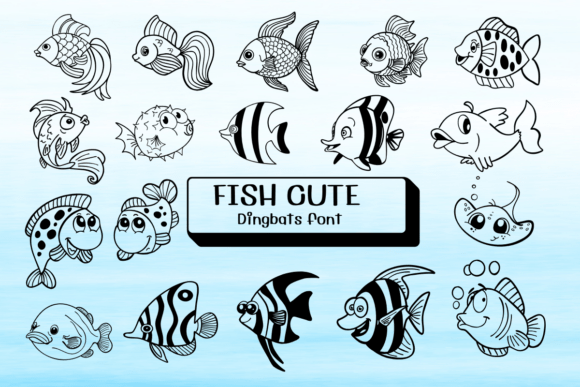
Fish Cute Font: Add a Splash of Fun to Your Creative Projects
Are you looking for a unique and playful font to enhance your creative projects? Look no further than the Fish Cute Font, a delightful dingbats font with an aquatic theme. This charming font is perfect for adding a touch of whimsy to your wedding invitations, DIY crafts, decorations, logos, and many other creative endeavors.
What is Fish Cute Font?
Fish Cute is a dingbats font, which means it’s a type of font that features symbols, icons, and graphics rather than traditional letters and numbers. This font is specifically designed with an aquatic theme, featuring adorable fish and other sea creatures that will add a playful touch to your projects.
Features of Fish Cute Font
The Fish Cute Font comes with a range of exciting features that make it perfect for creative projects. Some of its key features include:
- Adorable fish designs: The font features a variety of cute fish designs, including cartoon-style fish, fish tails, and other aquatic symbols.
Uses of Fish Cute Font
The Fish Cute Font is a versatile font that can be used for a wide range of creative projects, including:
- Wedding invitations: Add a touch of whimsy to your wedding invitations with the Fish Cute Font, featuring adorable fish designs that will set the tone for a playful and fun celebration.
- DIY crafts: Use the font to create custom DIY crafts, such as fish-themed decorations, gift tags, and cards.
- Decorations: Create eye-catching decorations, such as fish-themed banners, garlands, and signs, using the Fish Cute Font.
- Logos: Use the font to create custom logos for your business or brand, featuring adorable fish designs that will help you stand out.
- Social media graphics: Add a touch of fun to your social media graphics, such as Facebook posts, Instagram stories, and Twitter headers, using the Fish Cute Font.
Benefits of Using Fish Cute Font
Using the Fish Cute Font can bring a range of benefits to your creative projects, including:
- Unique and playful designs: The font features unique and playful designs that will add a touch of whimsy to your projects.
Tips and Tricks for Using Fish Cute Font
Here are some tips and tricks for using the Fish Cute Font:
- Experiment with different colors: Experiment with different colors and color combinations to add depth and interest to your designs.
- Mix and match designs: Mix and match different fish designs to create unique and playful combinations.
- Use the font for backgrounds: Use the font as a background element to add texture and interest to your designs.
- Combine with other fonts: Combine the Fish Cute Font with other fonts to create visually appealing and interesting typography.
The Fish Cute Font is a delightful dingbats font with an aquatic theme that’s perfect for adding a touch of whimsy to your creative projects. With its adorable fish designs, ease of use, and scalability, this font is a versatile solution for a wide range of projects, from wedding invitations to DIY crafts and decorations. Whether you’re a designer or non-designer, the Fish Cute Font is a great addition to your font library.